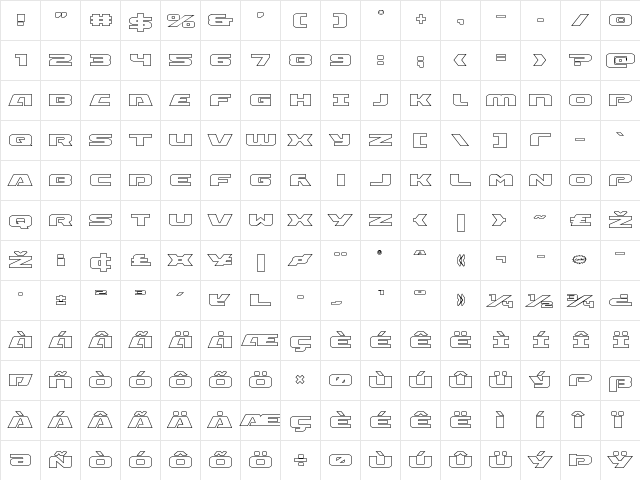
Iapetus Outline Regular
Design Context for Iapetus Outline Typeface
Iapetus Outline brings ornamental detail and strong personality to headlines and identities, where visual impact matters more than quiet functionality.
Font Pairing: Pair with a clean neutral sans-serif for body copy to let Iapetus Outline's character lead without overwhelming the composition.
Pro Tip: Use Iapetus Outline exclusively at display sizes — it was designed to be seen, not read at length. Let a neutral companion handle body copy.